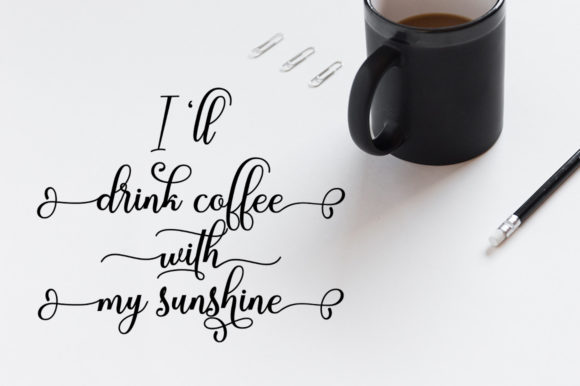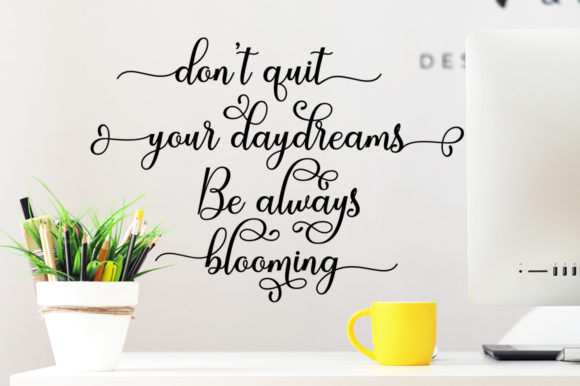
Brightness Font
db-ku.com - Script & Handwritten -- Brightness is an elegant and flowing handwritten font. It is PUA encoded which means you can access all of the glyphs and swashes with ease! It features a varying baseline, smooth lines, gorgeous glyphs and stunning alternates. Fall in love with its incredibly versatile style and use it to create gorgeous wedding invitations, beautiful stationary art, eye-catching social media posts, and much more!